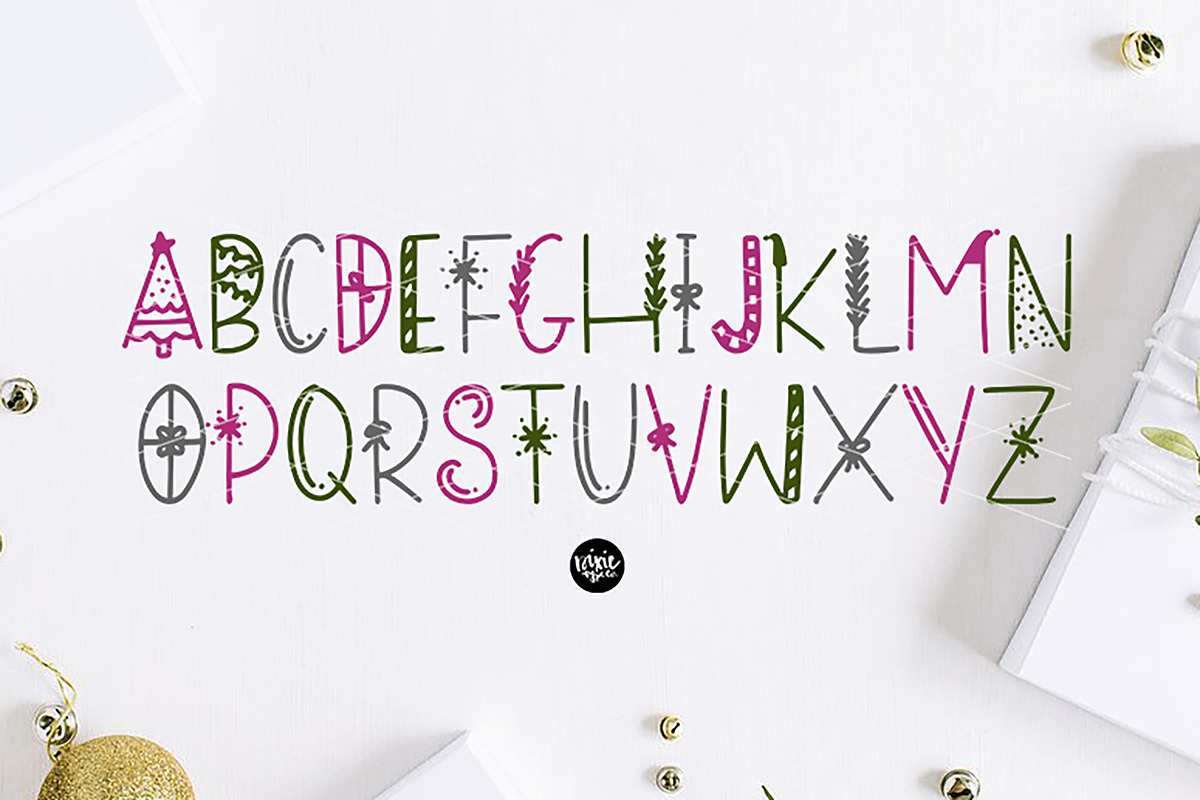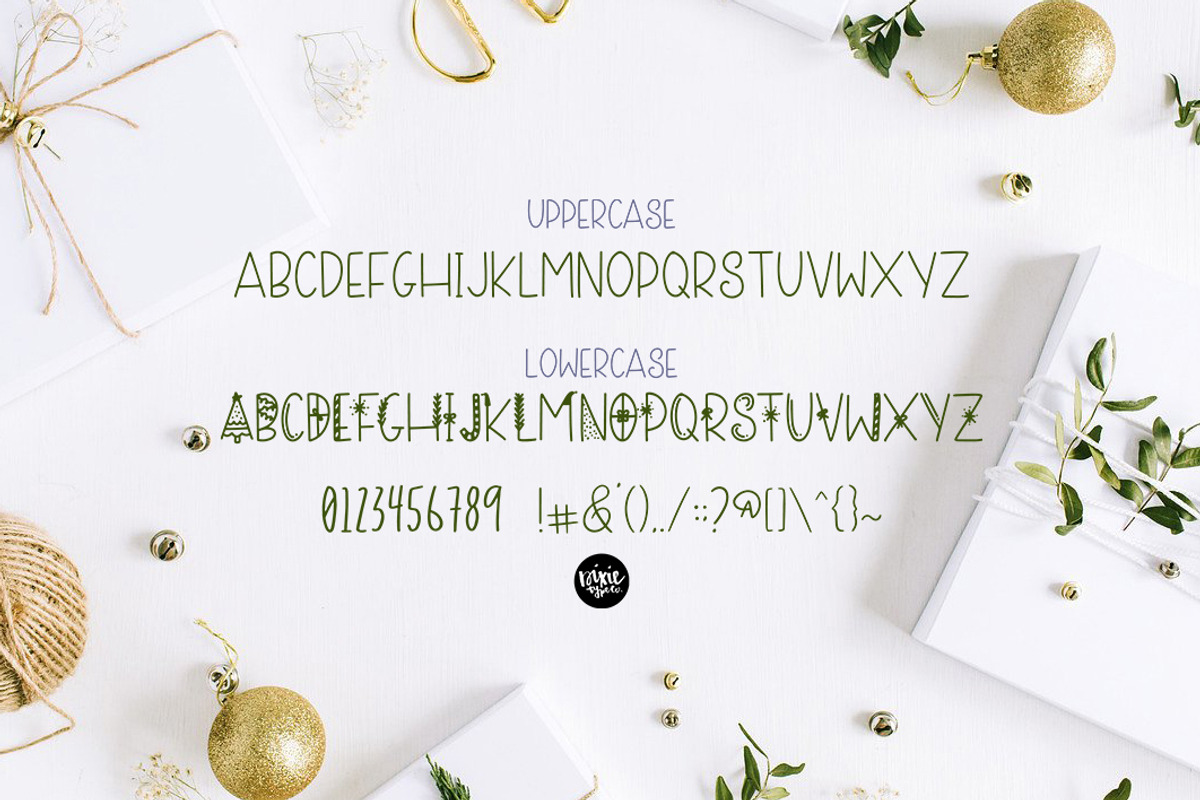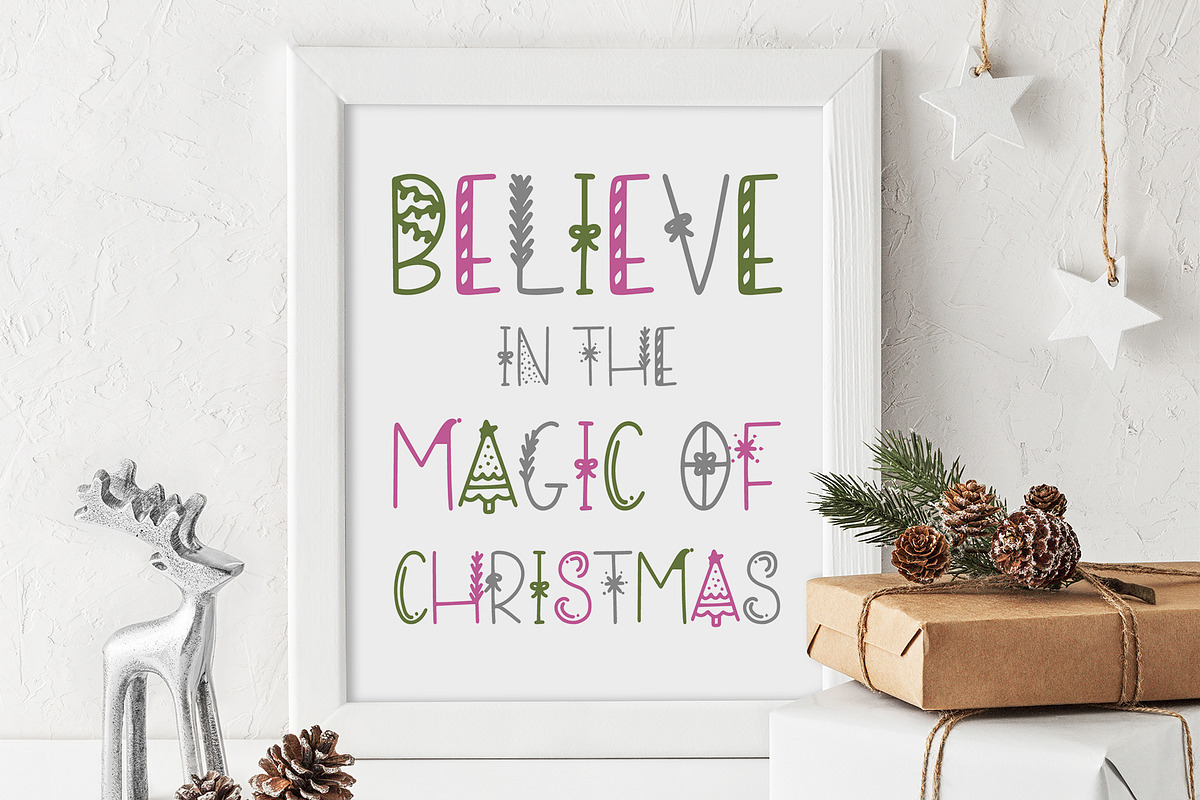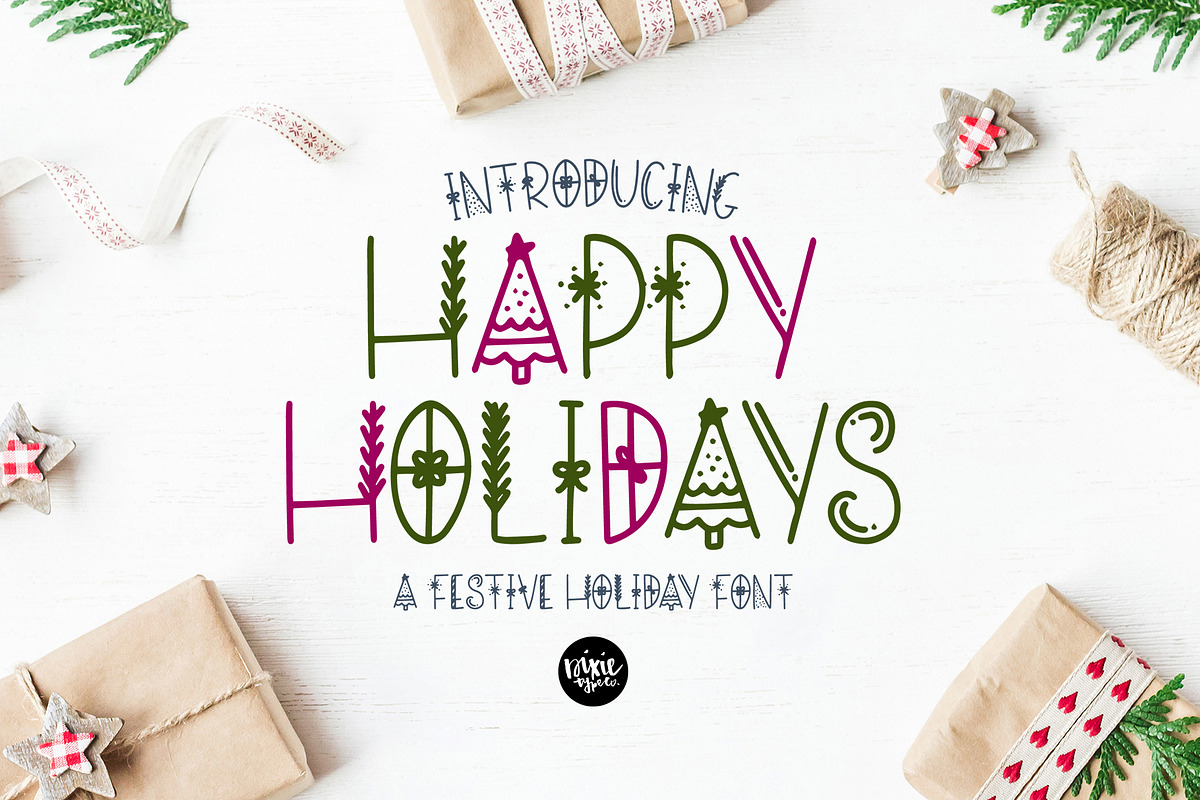
HAPPY HOLIDAYS Christmas Font
"Happy Holidays" a festive holiday Christmas .otf font
{ A typographic font hand lettered with love by Dixie Type Co. }
Includes an installable .OTF file. Font will be titled "DTC Happy Holidays" in your library. Happy Holidays is perfect for your Christmas projects. Use it on Christmas cards, winter crafts for decor and more! This font includes numbers and basic punctuation. UPPERCASE characters in this font are (matching) basic sans letters, and lowercase characters provide the holiday letters.
- UPPERCASE characters in this font are (matching) basic sans letters, and lowercase characters provide the holiday letters.